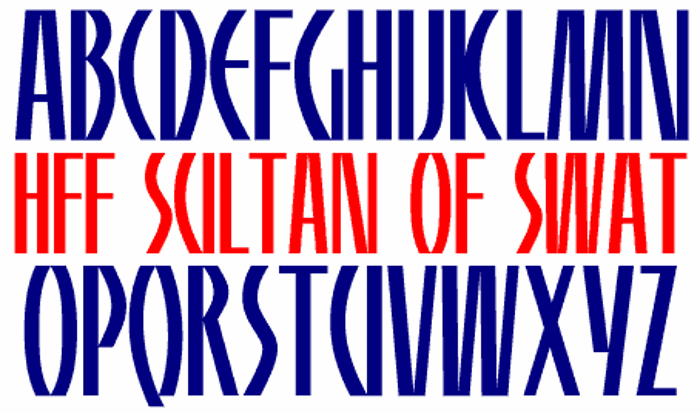
HFF Sultan of Swat Font
HFF Sultan of Swat is based on Maharaja from page 57 of "Condensed
Alphabets: 100 Complete Fonts" by Dan X. Solo. Maharaja is also featured
on page 8 of "The Solotype Catalog of 4,147 Display Typefaces".
The name of the font was taken from the sample text used for Maharaja in
"The Solotype Catalog of 4,147 Display Typefaces". :-)